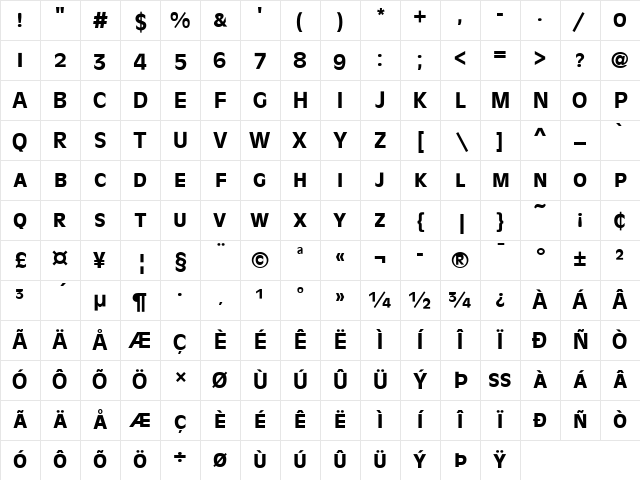
Antique Olive SC T Medium
Foundry: by URW
Antique Olive SC T Family
Antique Olive SC T Medium
Complete Antique Olive SC T Medium glyph index. Displaying only characters natively supported by Antique Olive SC T Medium font.
Design Context for Antique Olive SC T
Antique Olive SC T wears its vintage influences proudly, with letterforms that recall mid-century signage, classic packaging, and nostalgia-driven design.
Font Pairing: Combine Antique Olive SC T with a simple slab or neutral sans - period-accurate companions reinforce the vintage feel without competing for attention.
Pro Tip: Lean into Antique Olive SC T's period character by pairing it with aged paper textures, muted colour palettes, and vintage illustration styles.